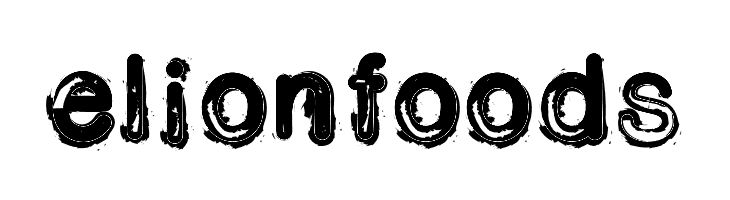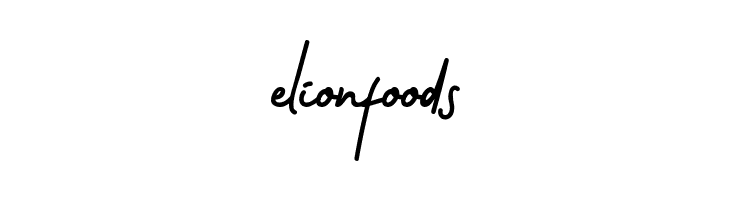
A bold, slab serif font with strong geometric shapes and block-like serifs.
A bold, italicized font with a hollow interior and geometric design.
A bold, hollow, geometric font with a strong, uniform appearance.
A bold, distressed font with a grungy, textured appearance.
A decorative, fictional script with geometric and symbolic characters.
A playful and casual handwritten font with smooth, flowing letterforms.
A bold, dynamic font with angular strokes and a playful, energetic style.